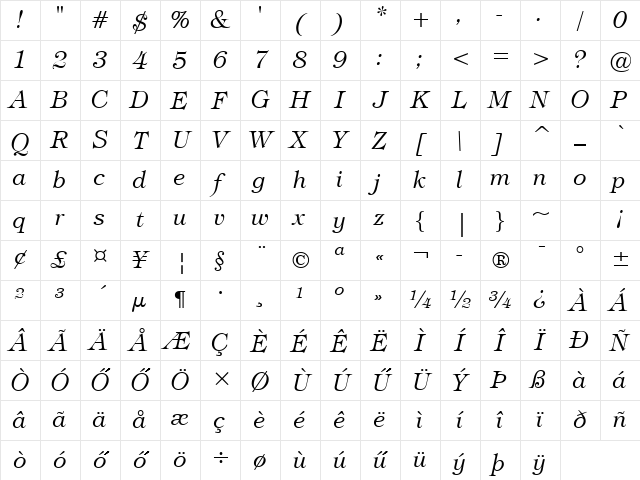
H_TIFFA6 Regular
Design Context for H_TIFFA6
H_TIFFA6 is a composed and adaptable typeface that performs quietly and consistently across a wide range of design contexts.
Pro Tip: Use H_TIFFA6 in both headline and body roles to test its range before committing to a single application.